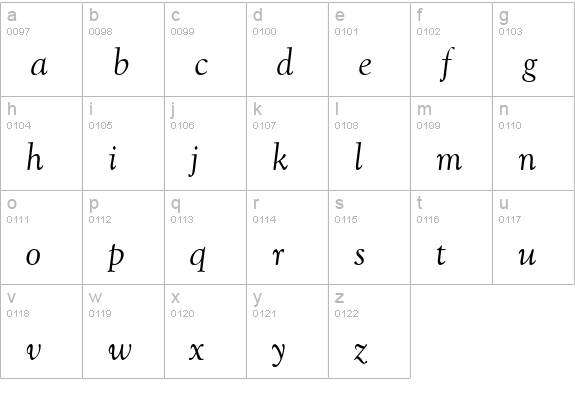
Goudy Retrospective SSi Italic Font Details
Goudy Retrospective SSi Italic is a distinctive, italic variant in the Goudy typeface family \xE2\x80\x94 well suited to design and typography projects.
The Goudy Retrospective SSi Italic font exudes elegance and sophistication with its graceful slanted style that adds a touch of class to any design project. Its flowing curves and distinct letterforms make it a perfect choice for adding a refined aesthetic to your work. This font pays homage to the timeless craftsmanship of renowned typographer Frederic W. Goudy, blending classic design elements with a modern twist. Whether used for headings, quotes, or body text, Goudy Retrospective SSi Italic stands out as a versatile typeface that commands attention. Best of all, this exquisite font is available for free download at FontsMarket.com. Embrace the beauty and versatility of Goudy Retrospective SSi Italic in your projects today and elevate your designs with a touch of timeless sophistication.